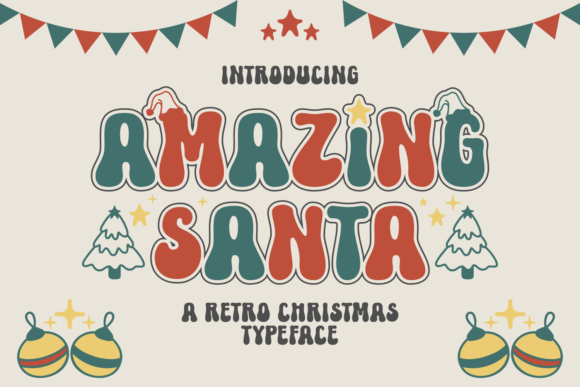
Looking for the perfect font to add a cozy and warm feel to your designs? Look no further than Amazing Santa Font, the best font for tattoos quotes! Created by Dani from 7NTypes, this display font is perfect for bringing a whimsical and festive touch to your projects.
With its unique and eye-catching style, Amazing Santa Font is sure to make your designs stand out from the crowd. And thanks to its PUA encoding, accessing all the glyphs and swashes is a breeze!
Whether you're creating holiday-themed graphics, adding a touch of whimsy to your branding, or just looking for a fun new font to play with, Amazing Santa Font is the perfect choice. So why wait? Download it today and see for yourself how this amazing font can elevate your designs to the next level!